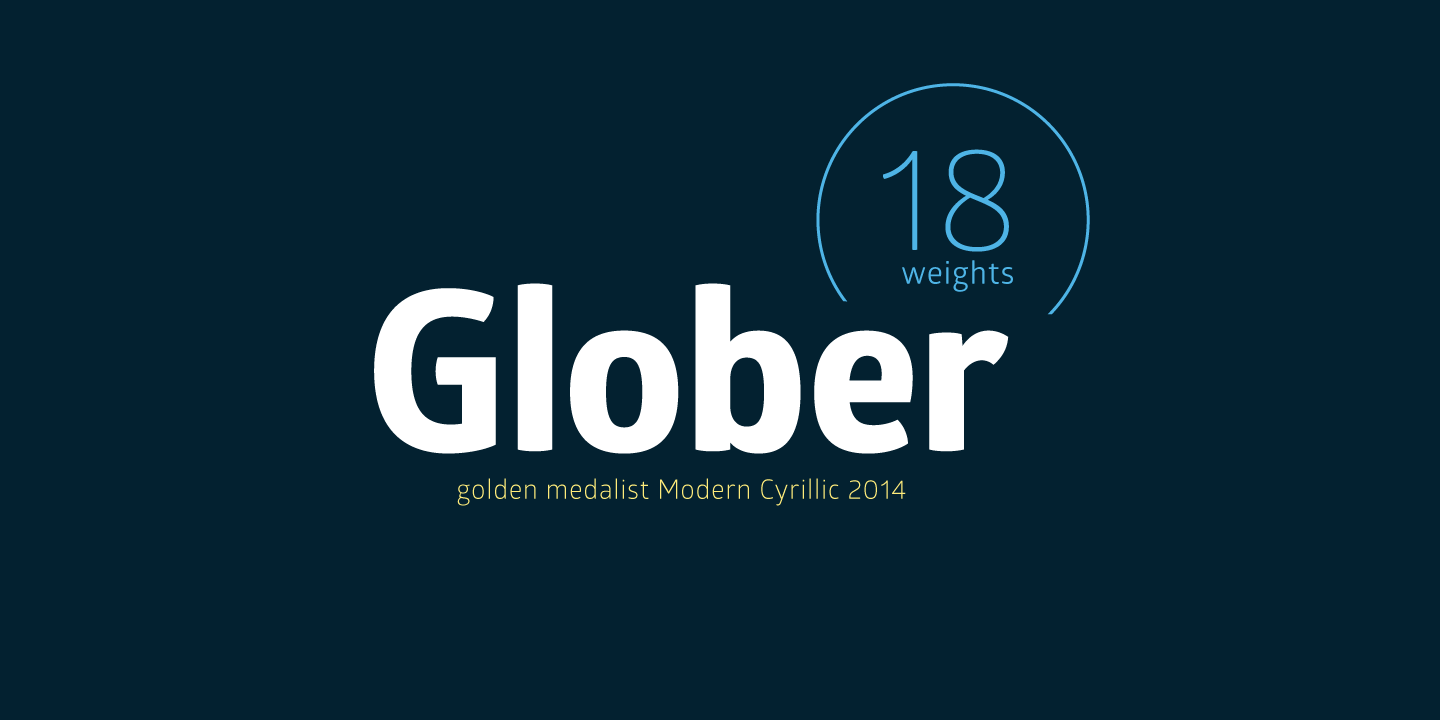
The Glober Font is an outstanding choice for projects that demand a modern, minimalist, and highly versatile sans-serif aesthetic with a strong, clean, and international appeal. It’s perfectly suited for contemporary branding, digital interfaces (UI/UX design), global corporate communications, clean website designs, editorial layouts for tech and lifestyle magazines, and any design that requires a sleek, professional, and easily readable typeface. Its robust yet understated character makes it ideal for conveying a sense of innovation, clarity, and sophisticated simplicity with a global reach.
What makes Glober Font so exciting is its impeccable balance of geometric precision and optimal legibility. It features crisp lines, open counters, and perfectly balanced letterforms that ensure outstanding readability across various applications, from commanding headlines to extensive body text. This font carries a sense of unpretentious professionalism and efficiency, making your content appear streamlined and trustworthy. It's a true workhorse typeface that provides a solid, unobtrusive foundation for any typographic system, allowing your message to shine through with absolute clarity and a contemporary appeal. Its versatility means it excels in both digital and print environments, maintaining its sophisticated presence with an international flair.
The Glober Font family is exceptionally comprehensive, offering a wide array of weights and styles to provide maximum flexibility for designers. You can can expect a full spectrum from Thin and Light to Regular, Medium, SemiBold, Bold, and often ExtraBold or Black, accompanied by complementary italic versions for each weight. This broad family allows for sophisticated typographic hierarchies, enabling precise control over emphasis, flow, and visual balance within your designs. Some versions might also include condensed or expanded styles, specialized numerals, and extensive OpenType features for detailed typographic refinement and broad language support, making the Glober Font Free Download an incredibly versatile tool.
Whether you're developing a cutting-edge global platform, designing a sleek corporate identity for a multinational company, or crafting a visually compelling annual report, the Glober Font Free Download offers an indispensable tool. Its contemporary aesthetic, robust functionality, and broad applicability make it a premier choice for any project that requires a typeface of lasting quality, professional polish, and universal appeal.